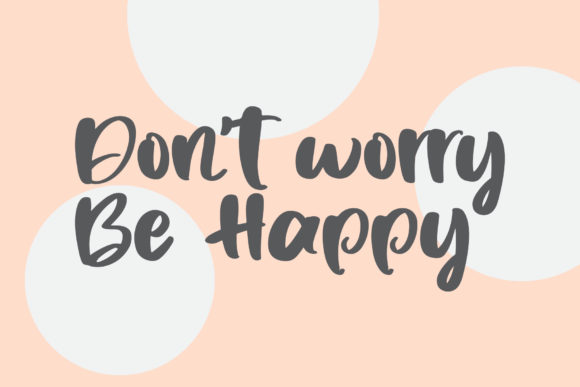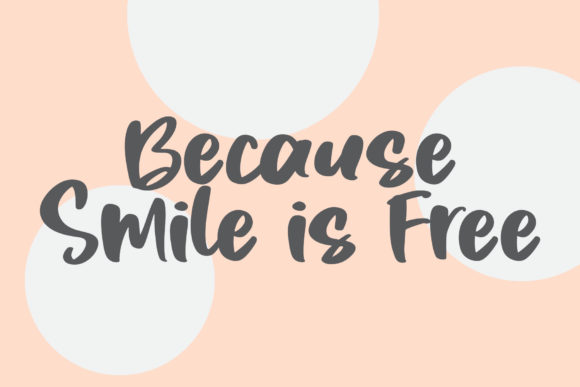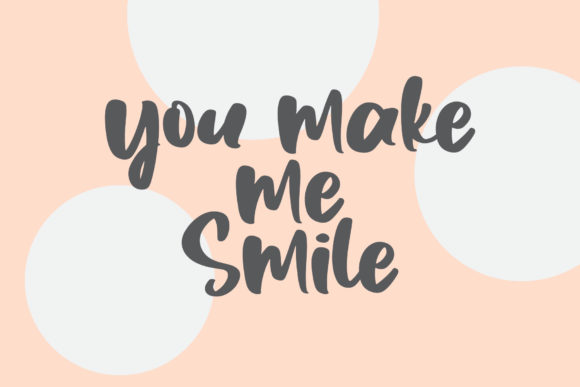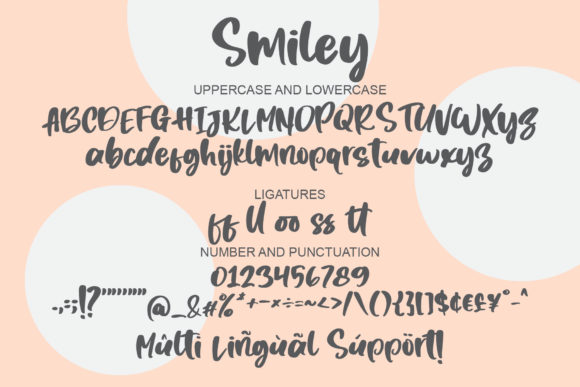
About Smiley Font
Smiley is a chic and trendy handwritten font. Fall for its ravishing style and use it to create gorgeous wedding invitations, beautiful stationary art, eye-catching social media posts, and much more!